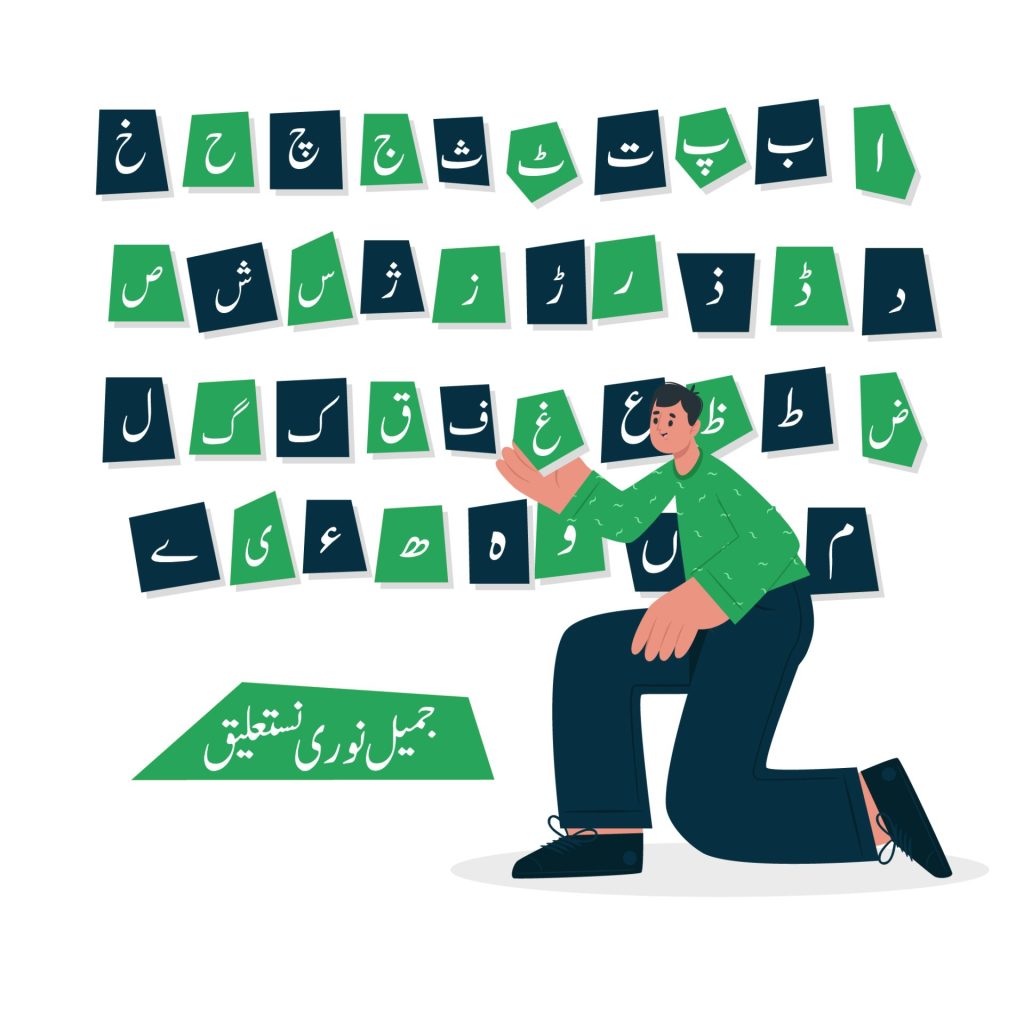
A well-known Pakistani calligrapher, Ahmad Mirza Jamil was popular for development of his Noori style of Nastaliq. He created the 1st ever digital Urdu font in the collaboration with a company called monotype. The font is named as Jameel Noori Nastaleeq. Before the creation of this font, people used to write Urdu with their hands even for newspapers and magazines. However, the development of Jameel Noori Nastaleeq significantly influenced the digital typography of Urdu and led to the development of different Urdu fonts. Moreover, it was quite tiring and time taking to type Urdu by hands but at that time, individuals do not have any other option.
| Attribute | Details |
|---|---|
| Font Name | Jameel Noori Nastaliq |
| Font Type | Nastaliq script |
| Creator | Ahmad Mirza Jamil |
| Development Year | 1981 |
| Language | Urdu |
| Achievement | Tamgha-e-Imtiaz |
| Features | Flowing lines, thick & varying strokes, elegant appearace |
| Uses | Social media content, websites & blogs, educational materials, Advertising and Marketing, Cultural and Literary Works |
In the 14th century, Nastaliq script originated in Iran. This script got emerged from the Naskh script and was originally utilized for writing Persian poetry. It was popular for its elegant as well as flowing strokes. After that, in the 15th century, Noori Nastaliq style of Nastaliq script was created by a famous calligrapher of that time, Mir Ali Tabrizi. Noori Nastaleeq style was characterized by its exceptional mixture of Naskh & Taliq scripts, which led to a clearer and transparent script. With time, this script extended to other countries of the universe, incorporating the Indian subcontinent, where it became a crucial part of Urdu literature. Learn about the origin of Perso-Arabic Script Nastaliq that gave life to other South Asian languages.
Ahmad Jamil Mirza’s Noori Nastaleeq became the well-defined standard for Urdu calligraphy and was widely used for writing literature, poetry, and any other types of written communication.
The creation of Jameel Noori Nastaleeq font had a huge influence on Urdu typography. It provides a traditional and cultural alternative to digital fonts. Its global adoption has allowed Urdu content creators to generate high-quality digital content that is both visually attractive and legible. Furthermore, it has likewise inspired many calligraphers and typographers to develop their own digital Urdu fonts of Nastaliq script, further improving the industry of Urdu typography.
Jameel Noori Nastaleeq attracts the attention of viewers and shows elegance due to its thick and varying strokes. The flowing lines as well as curves reflect the sophistication of the Nastaliq script, guaranteeing clarity and readability despite its ordinary appearance. The font has gotten huge popularity as well as worldwide adoption among other Urdu content creators because of its clarity and readability in both print and digital media. Even though it is best to use for for short texts because of its intricate design, however, you can use this font in Quran writing, branding, advertising, invitations, etc., where its exclusive style provides a touch of culture and tradition. Because of its versatility, it is now used in Pakistan and other Asian countries where Urdu language is spoken. Read more about Top 12 Urdu Calligraphers who devoted their lives to continue the legacy of Urdu calligraphy.
Undoubtedly, Jameel Noori Nastaleeq font has a rich history because it was the first ever digital Urdu font created by Ahmed Mirza Jamil in a collaboration with monotype. Ranging from its development in the 14th century to its digital creation in the 1980s, this font has become a number one choice of Urdu typographers because of its elegance as well as cultural appearance. Moreover, its worldwide adoption had a huge effect on Urdu typography, improving and leading to the development of other digital Urdu fonts.